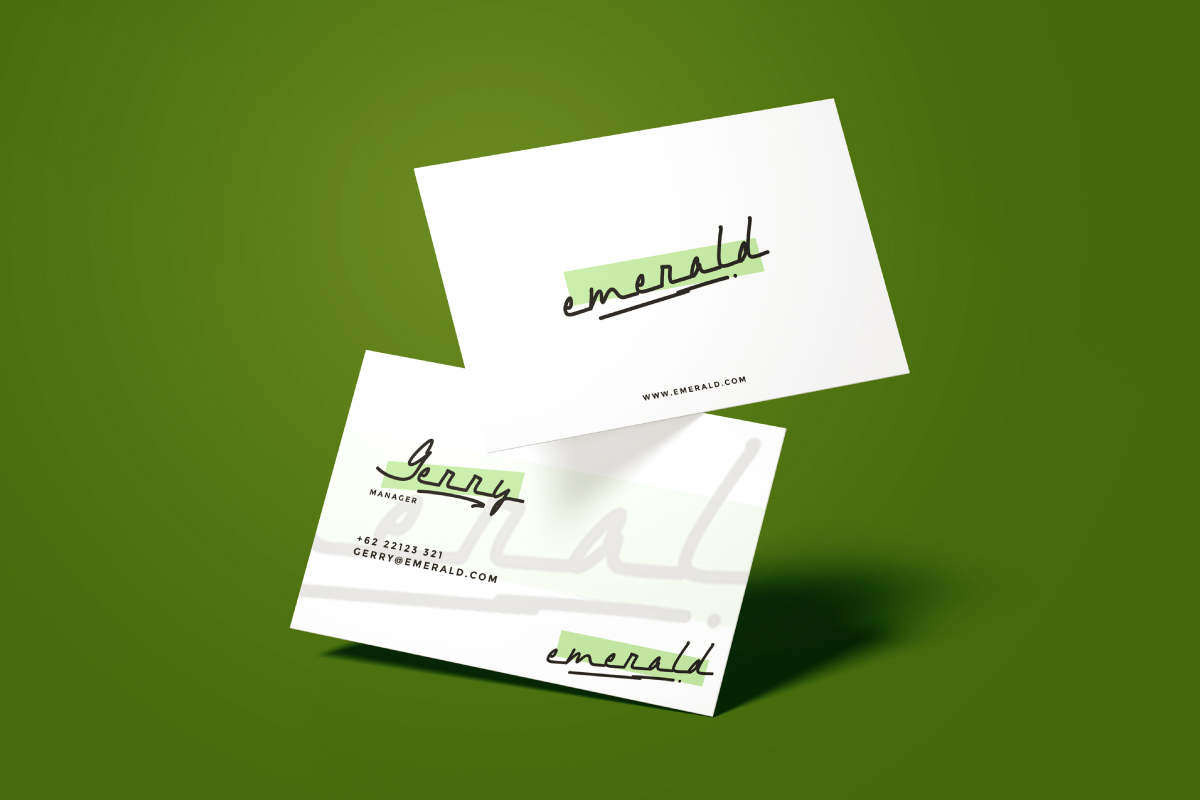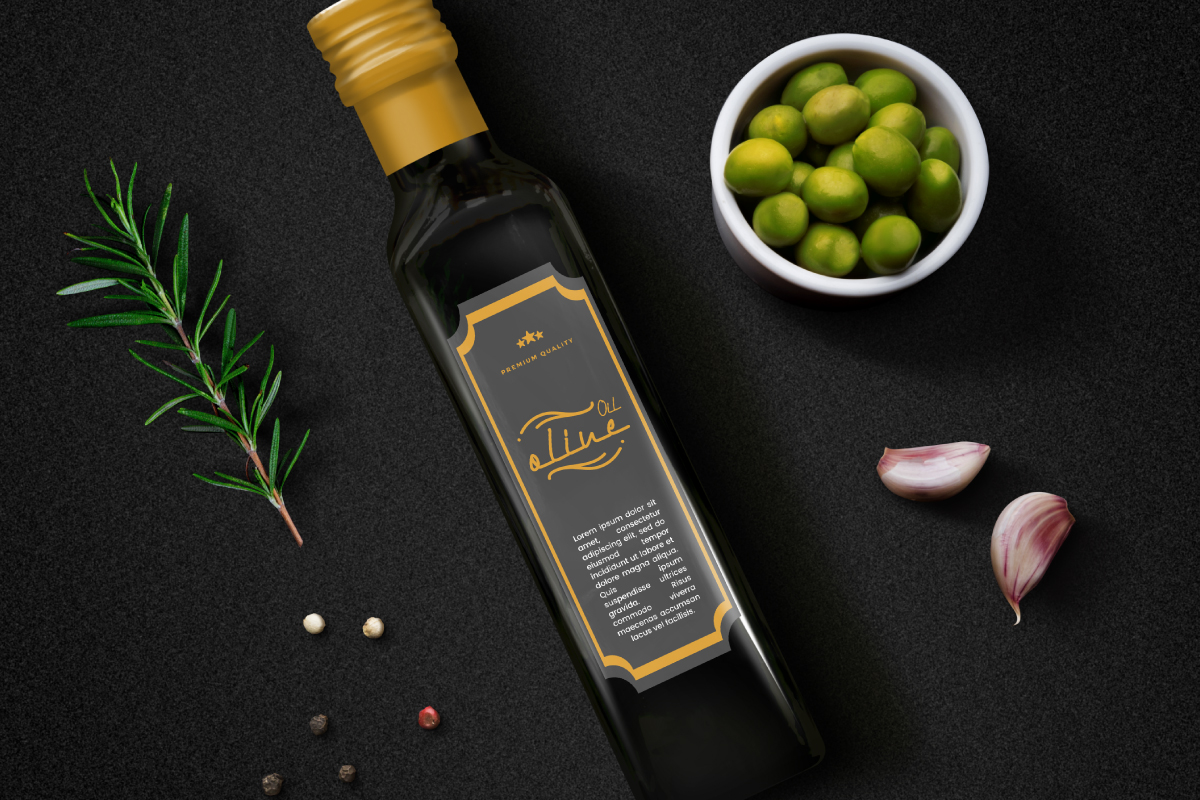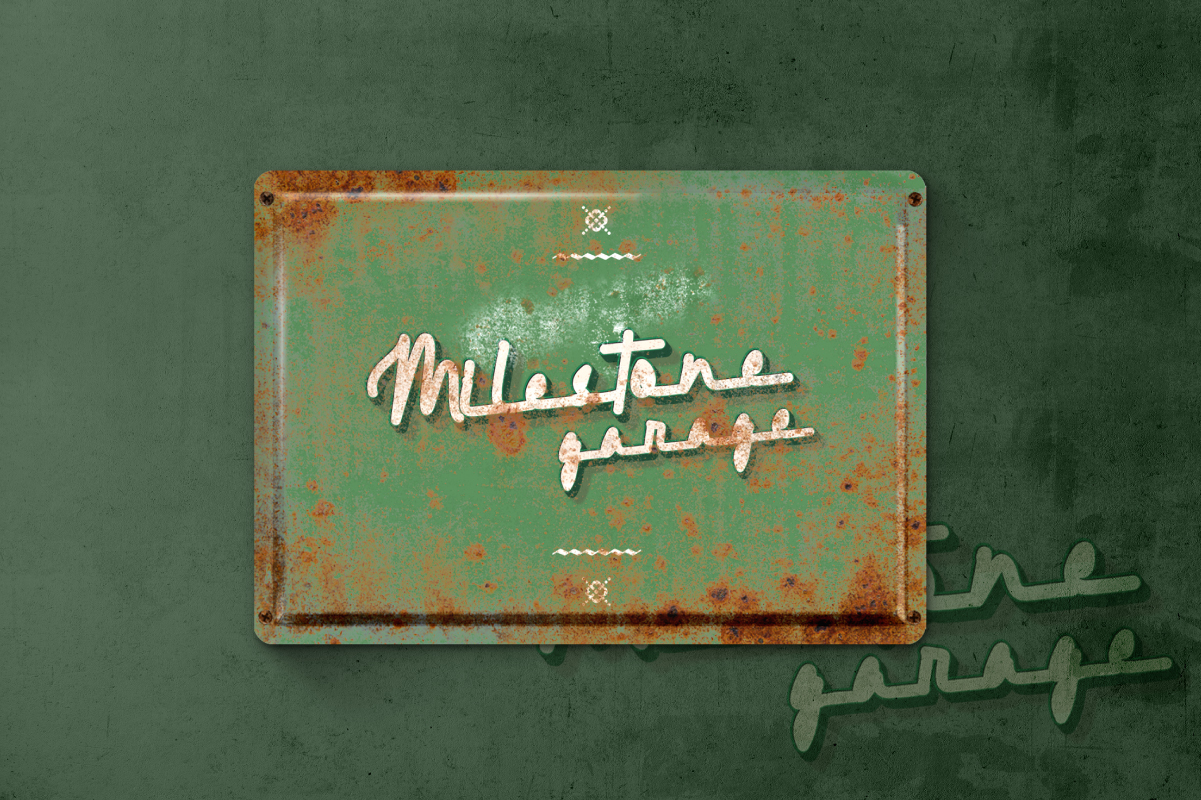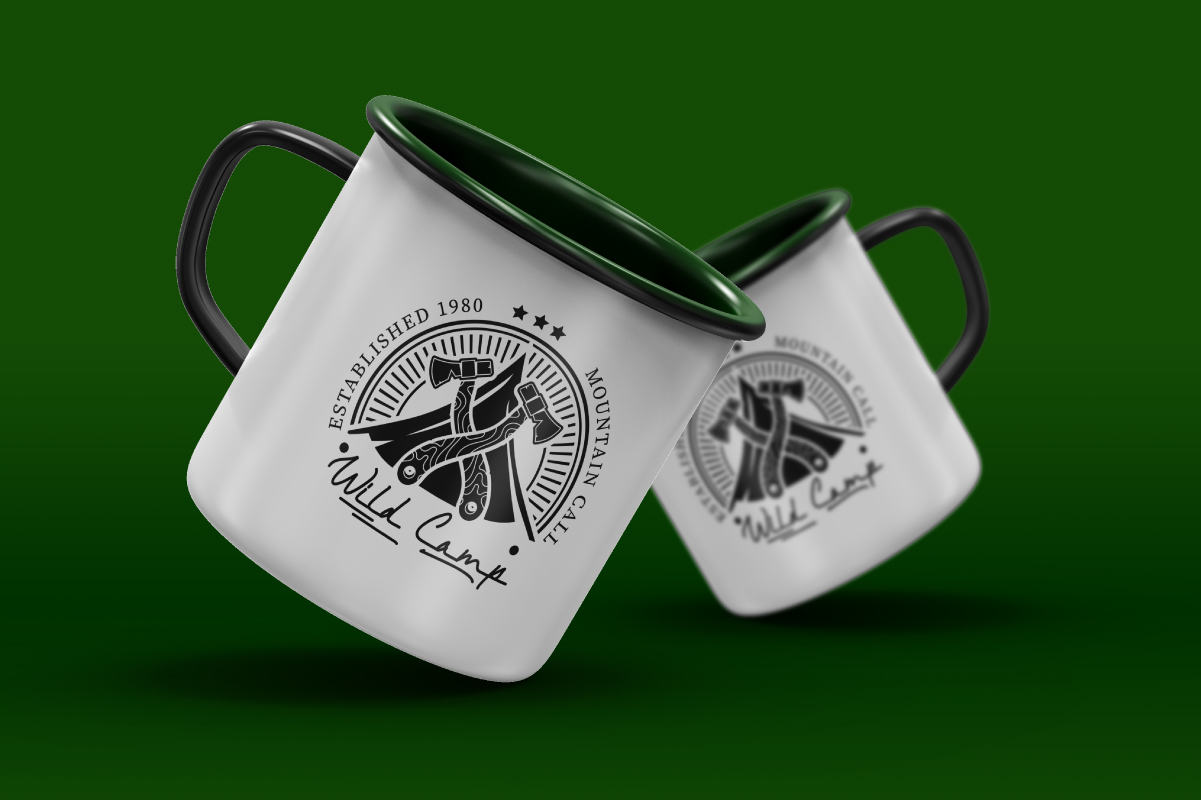
Kennewick Font
Kennewick Handwritten Font
This font is Handcrafted here in our Studio, Indonesia. It will be great for any projects (require extended license) including : branding, logo, stationery, business card, signage, flyer, brochure etc. Kennewick Font comes great for many business industries : Restaurant, café, music, wedding, automotive, property etc